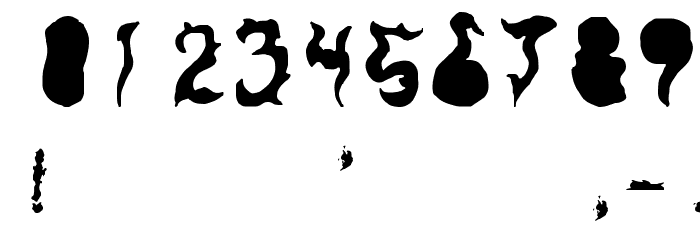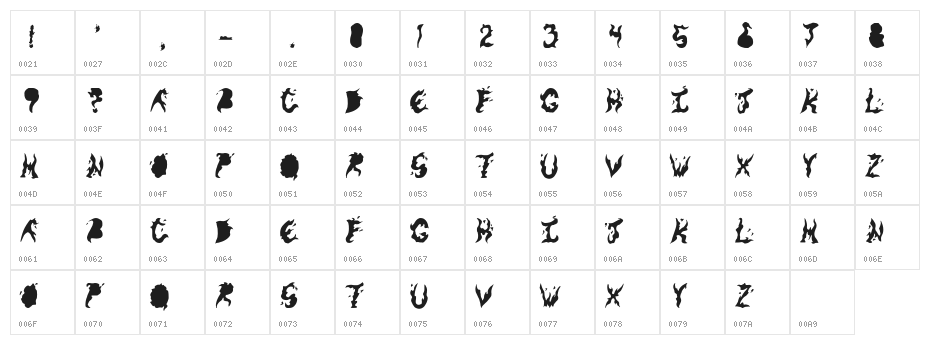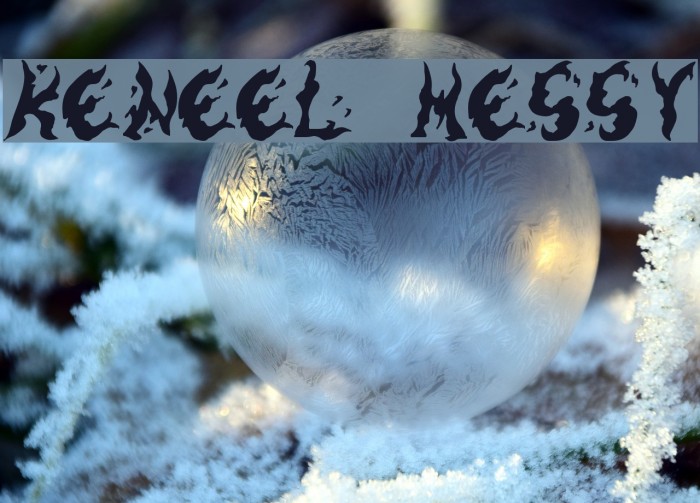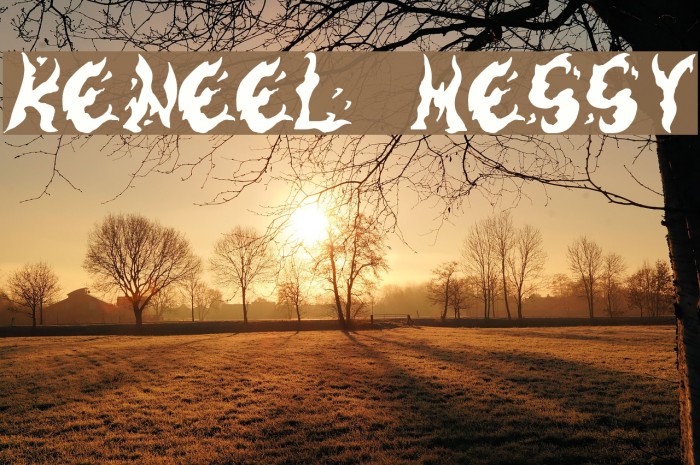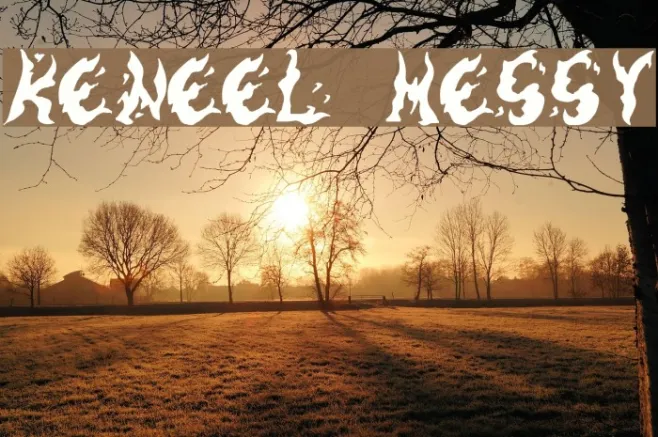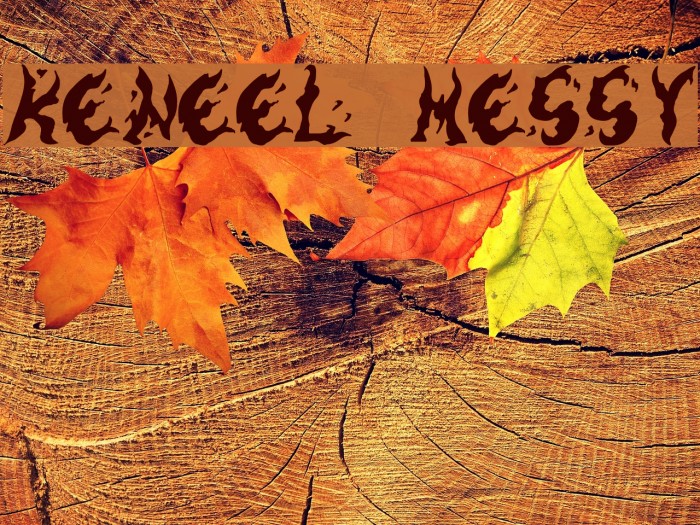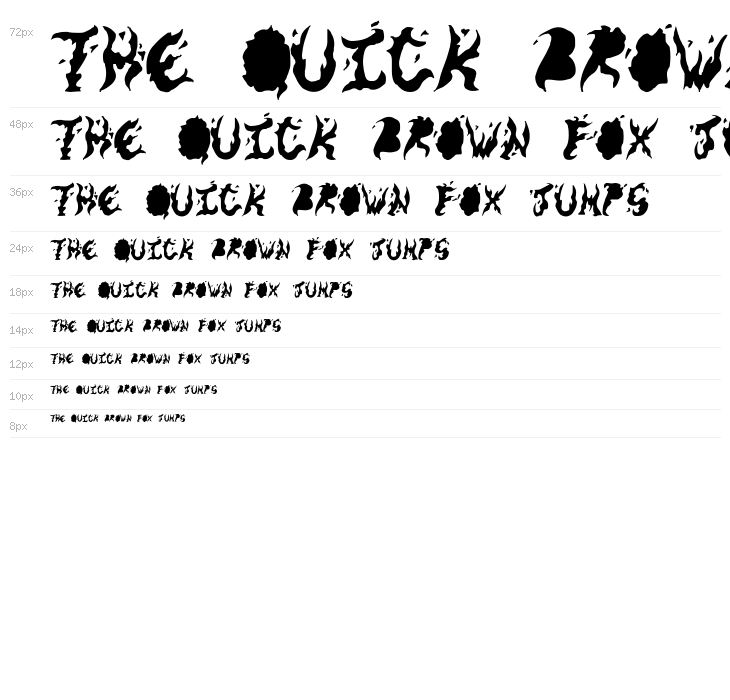
Keneel Messy Font
Keneel Messy Description
This font features a chaotic and dynamic design, with each character appearing as if it is melting or dripping. The irregular shapes and jagged edges give it a distinctly messy and organic feel, reminiscent of flames or liquid in motion. The uppercase and lowercase letters maintain this theme, creating a cohesive yet unpredictable appearance. The numbers and special characters follow suit, ensuring consistency across the entire character set. This font is highly decorative and eye-catching, making it suitable for projects that require a bold and unconventional look.